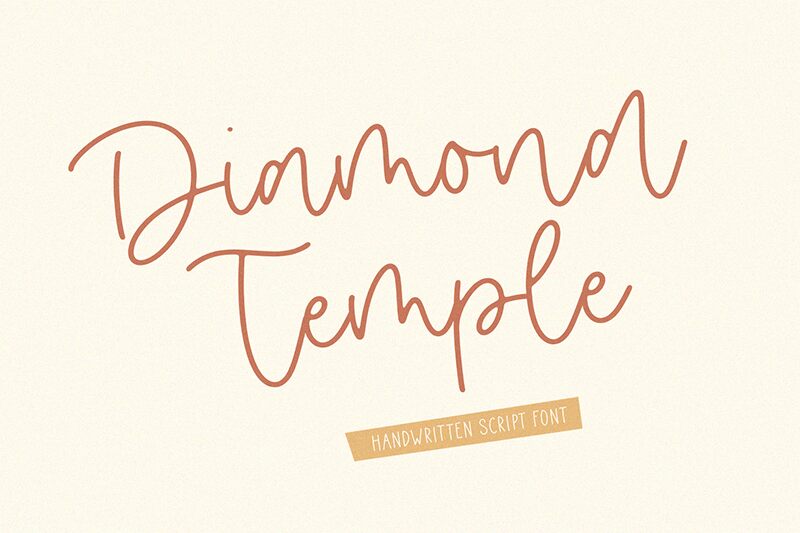
Diamond Temple
Diamond Temple, crafted by Timur Type, is a handwritten font that exudes an elegant and personal touch. Its graceful strokes and light touch bring a sense of intimacy to each letter, while the subtle variation in line thickness adds depth and character. The sweeping curves and elongated forms of Diamond Temple suggest a sense of sophistication and refinement.
Ideal for invitations, branding materials, and editorial designs that require a delicate yet impactful presence, Diamond Temple offers designers the opportunity to create work with a human touch that resonates with an audience looking for authenticity. Its aesthetic charm ensures it stands out in applications where personality and elegance are paramount.